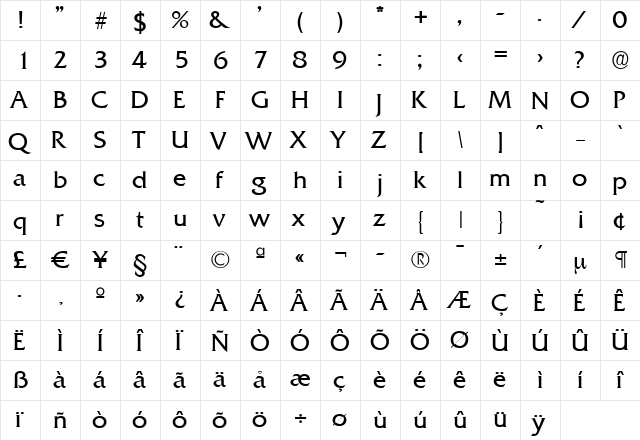
DennisBecker-Light Regular
Design Context for DennisBecker-Light Typeface
DennisBecker-Light is a composed and adaptable typeface that performs quietly and consistently across a wide range of design contexts. Its slender proportions lend an understated elegance to any composition.